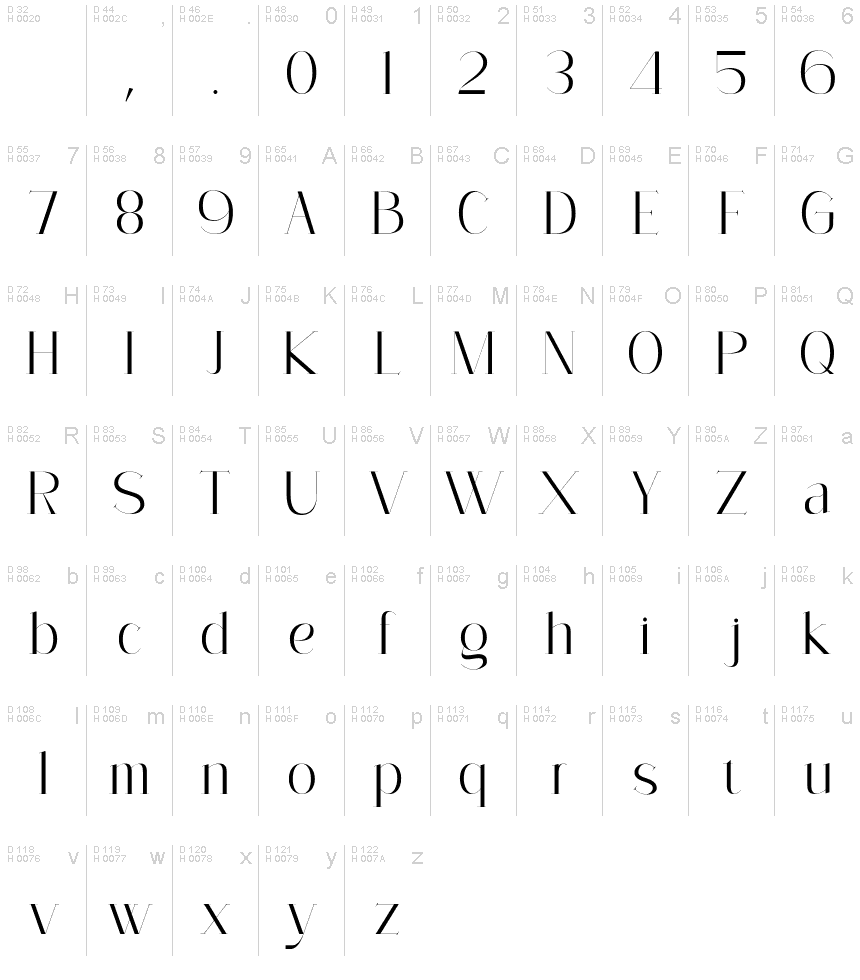
Camilen Regular
Camilen, a creation by Muksal Creative, is a captivating modern serif font. With its semi-light weight, this typeface exudes an air of elegance and sophistication.
Its sleek lines and stylish curves make it perfect for branding projects, such as luxury fashion or high-end jewelry. Camilen's versatility also lends itself well to editorial design, adding a touch of refinement to magazines or book covers. Whether used for corporate materials or web design, this font effortlessly brings a contemporary edge to any project.